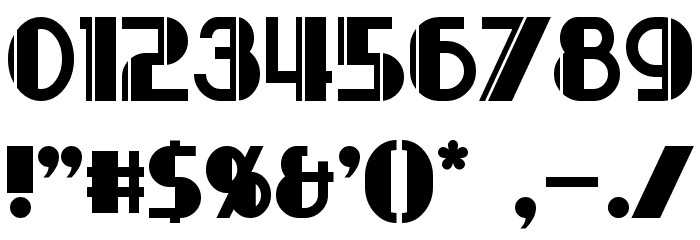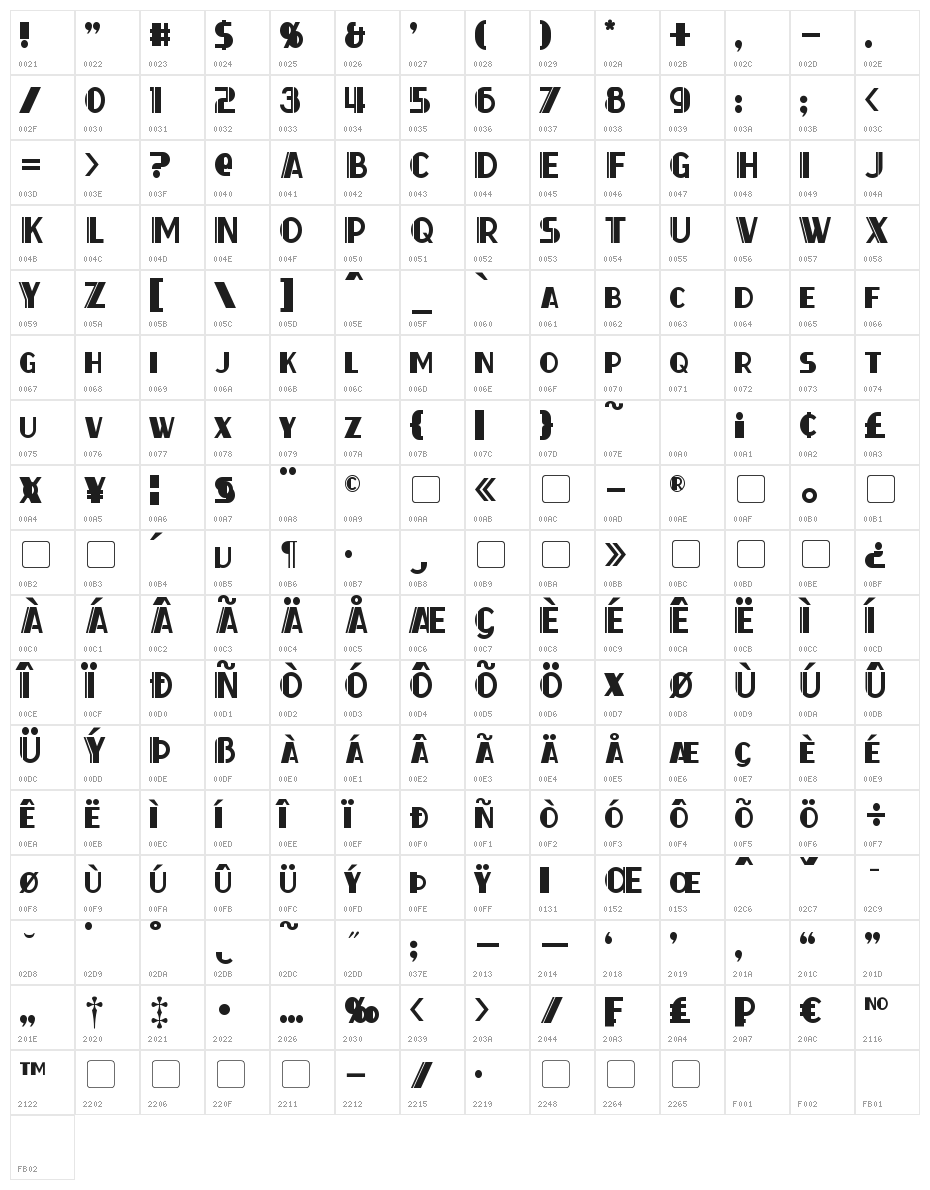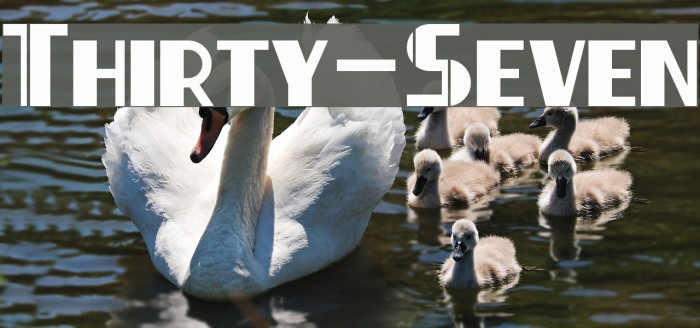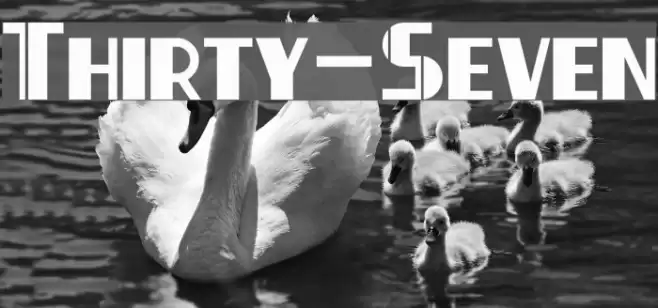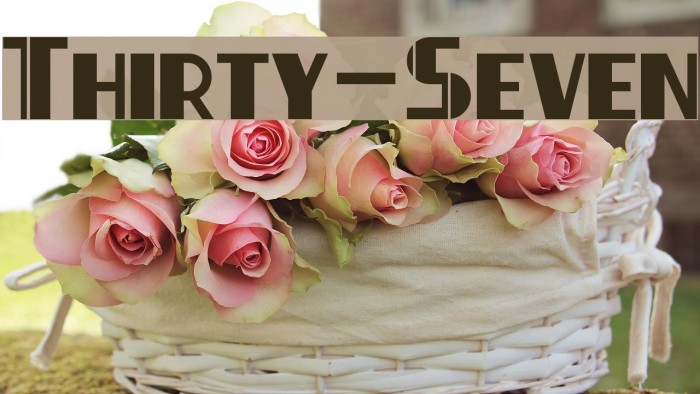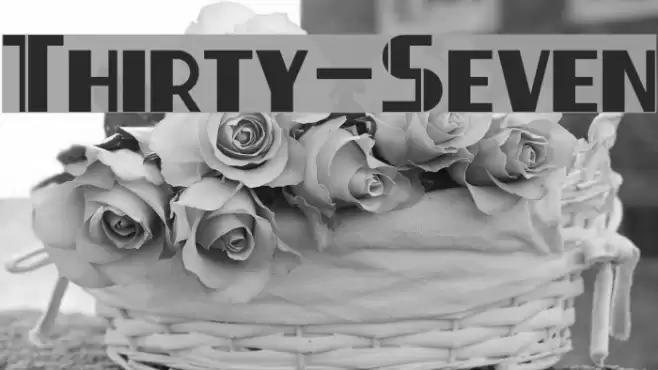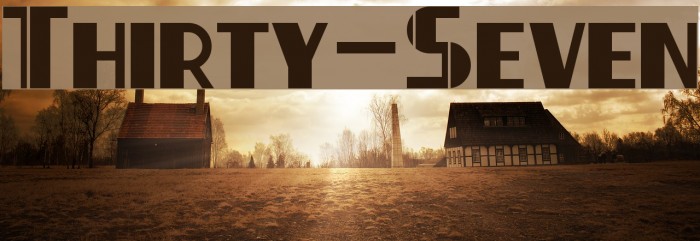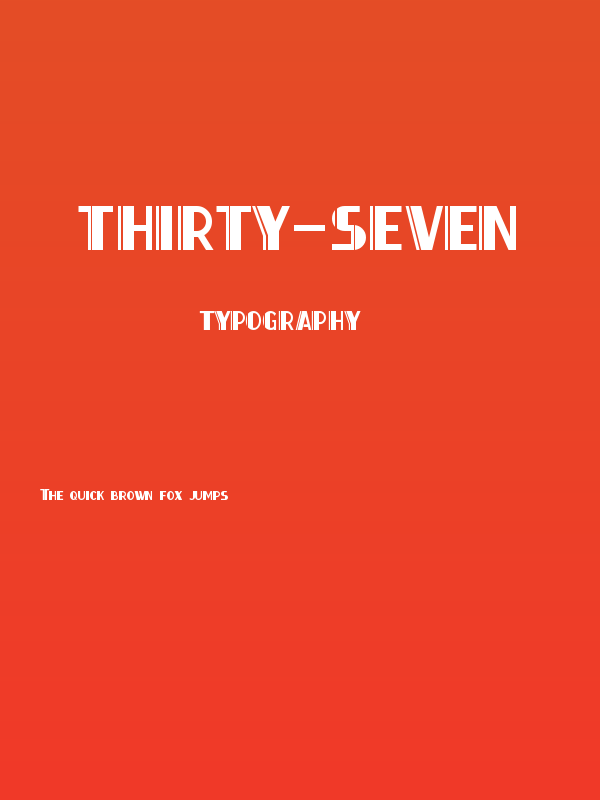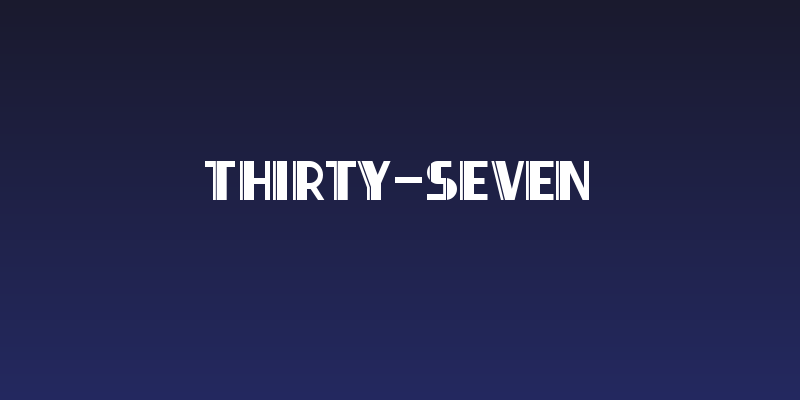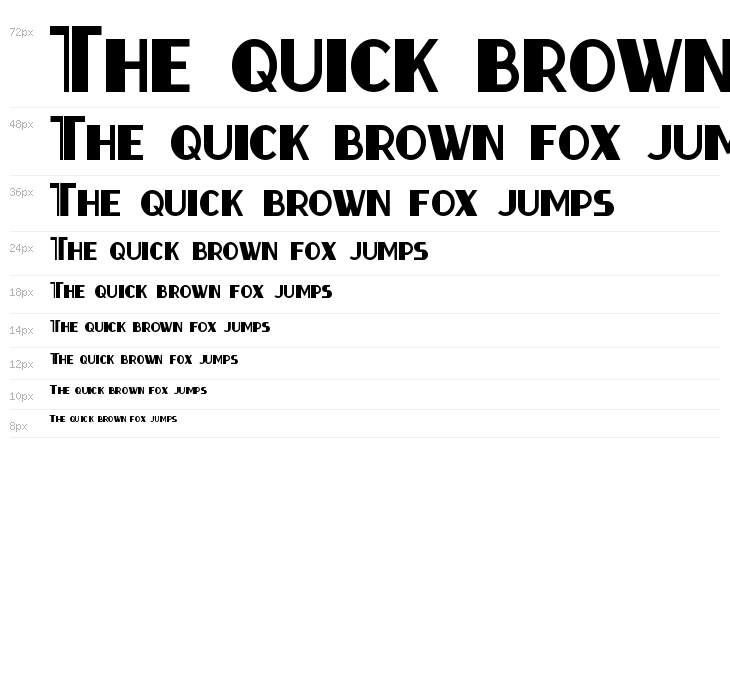
Thirty-Seven Font
Thirty-Seven Description
This font features a bold and geometric design with a strong emphasis on angular shapes and clean lines. Each character is crafted with precision, showcasing a modern aesthetic that combines both sharp edges and smooth curves. The uppercase letters are particularly striking, with a unique interplay of positive and negative space that creates a dynamic visual impact. The numbers and special characters maintain this cohesive style, ensuring versatility across various applications. This font is perfect for projects that require a contemporary and assertive look, making it ideal for branding, advertising, and editorial design.